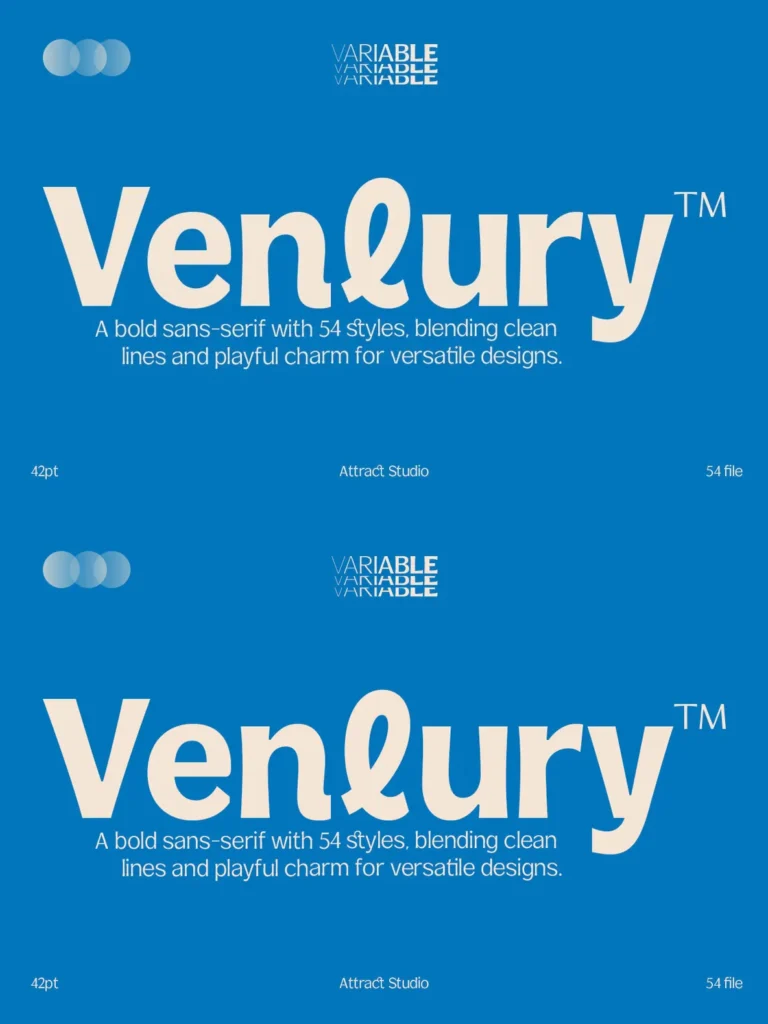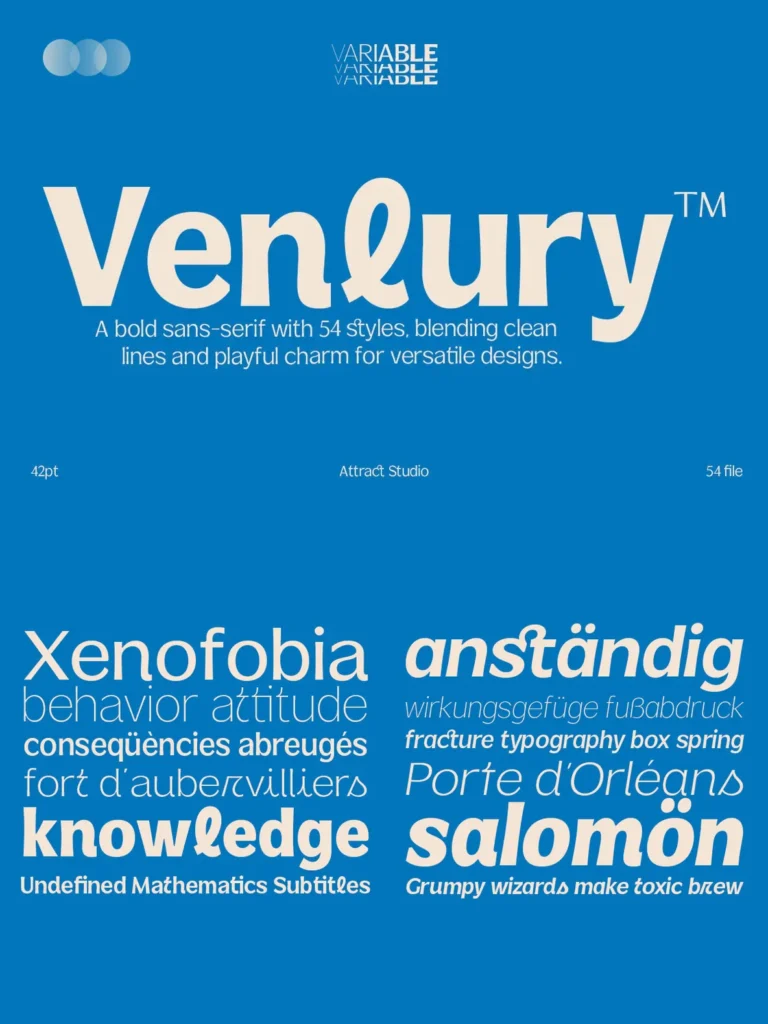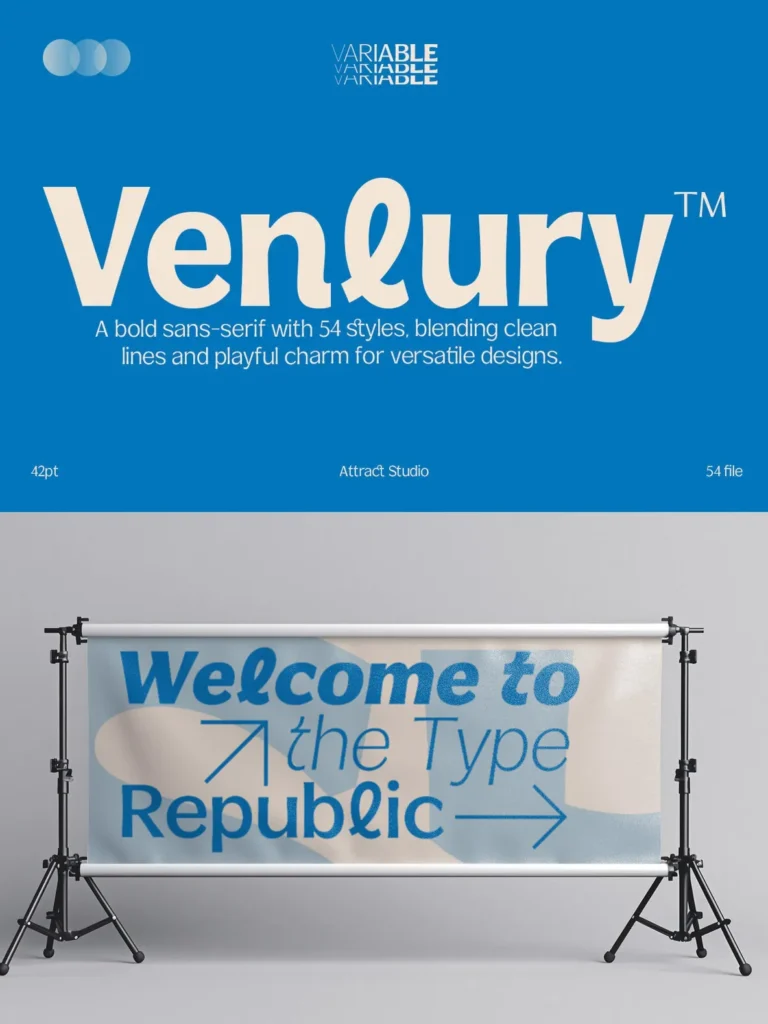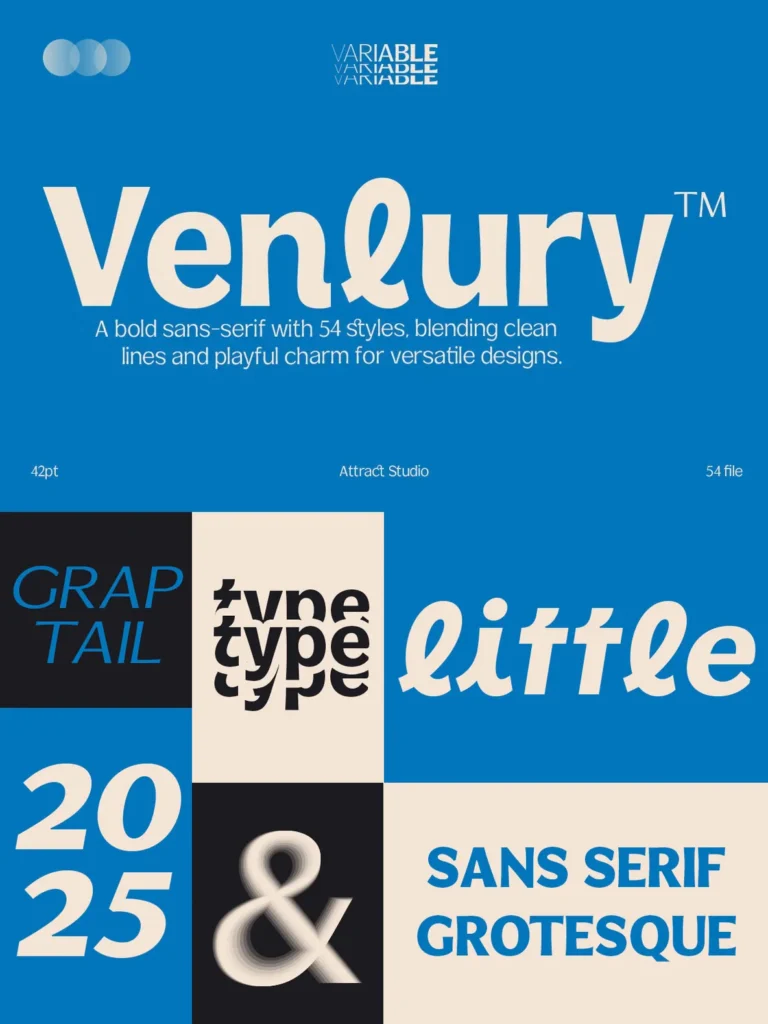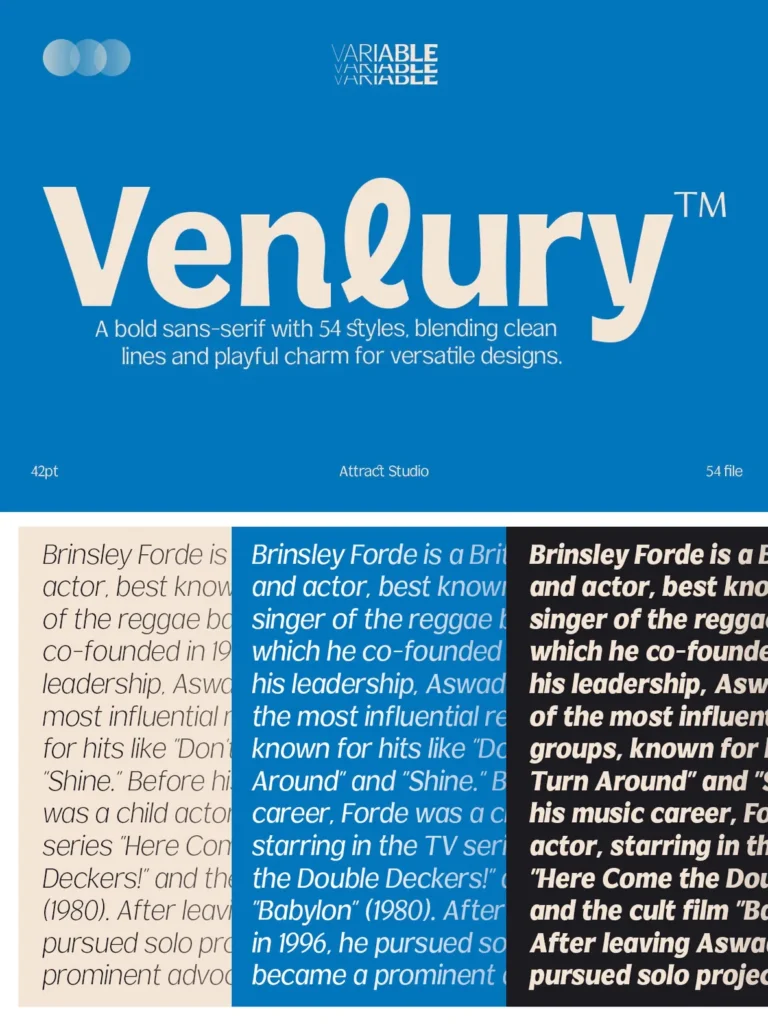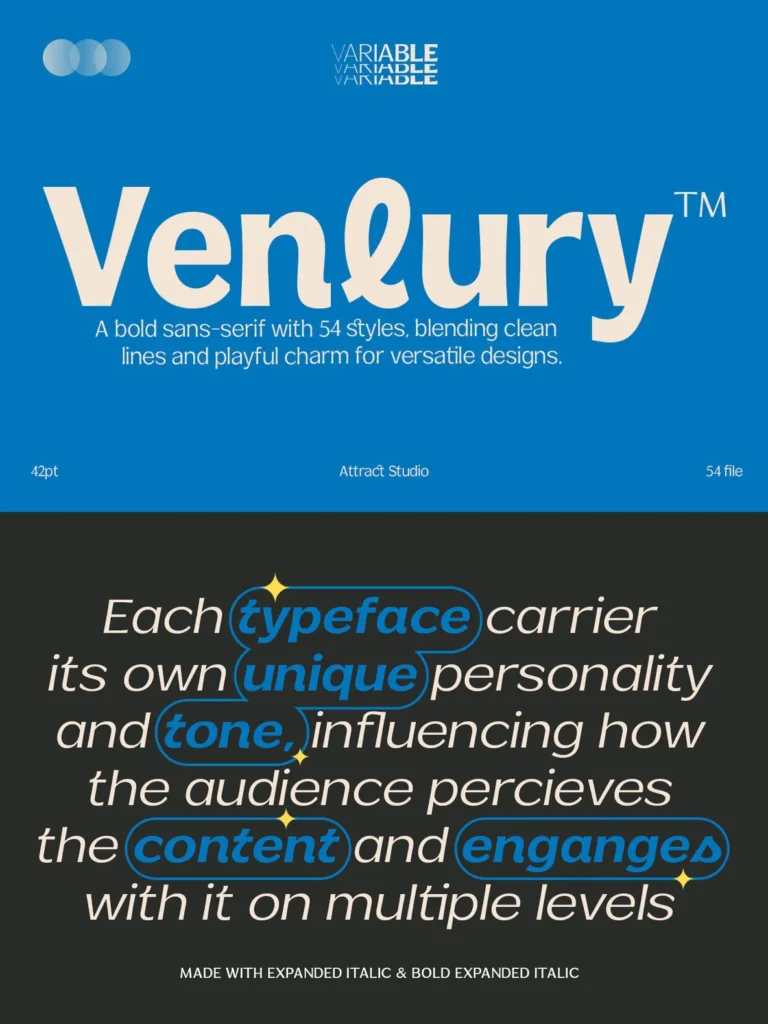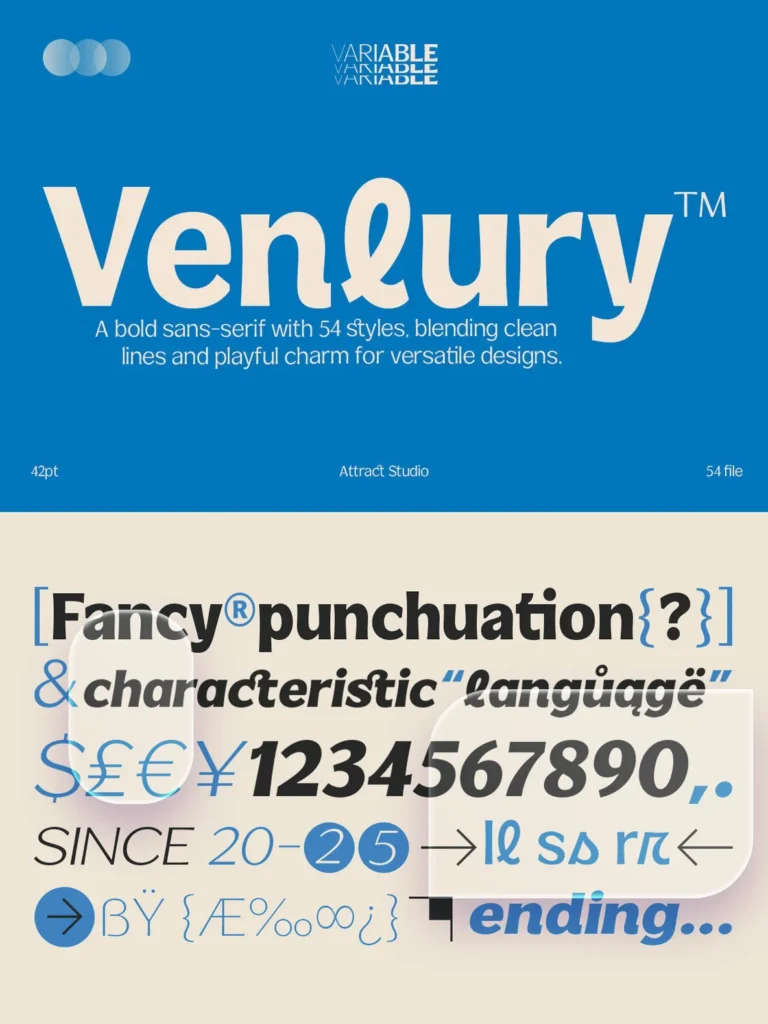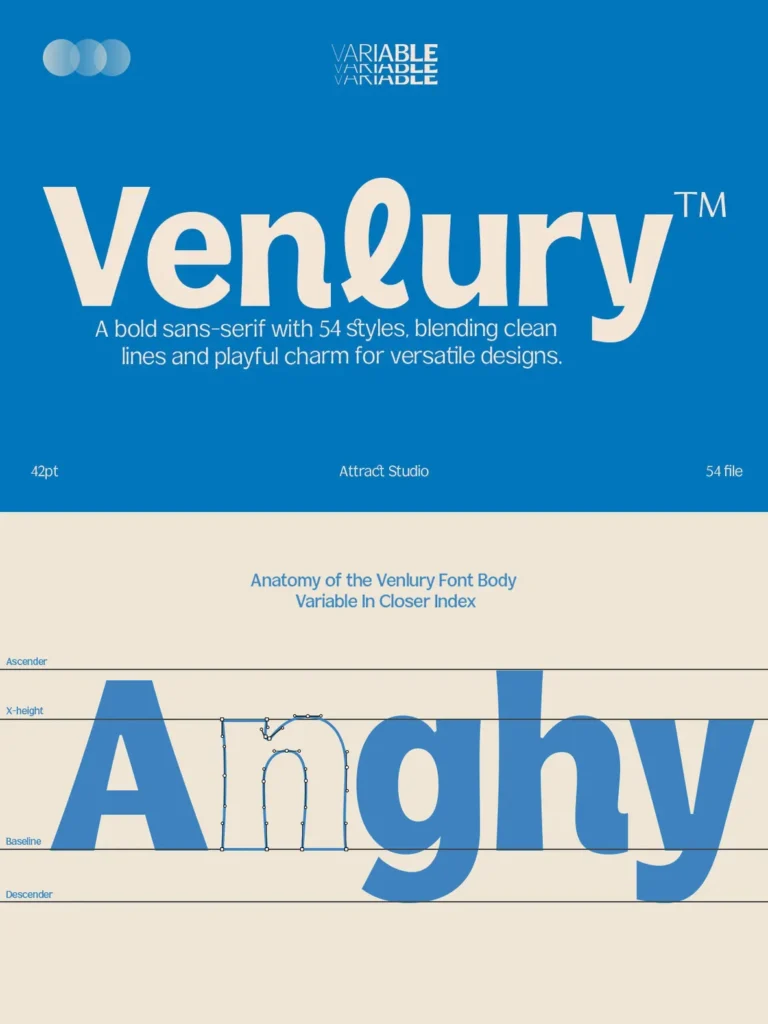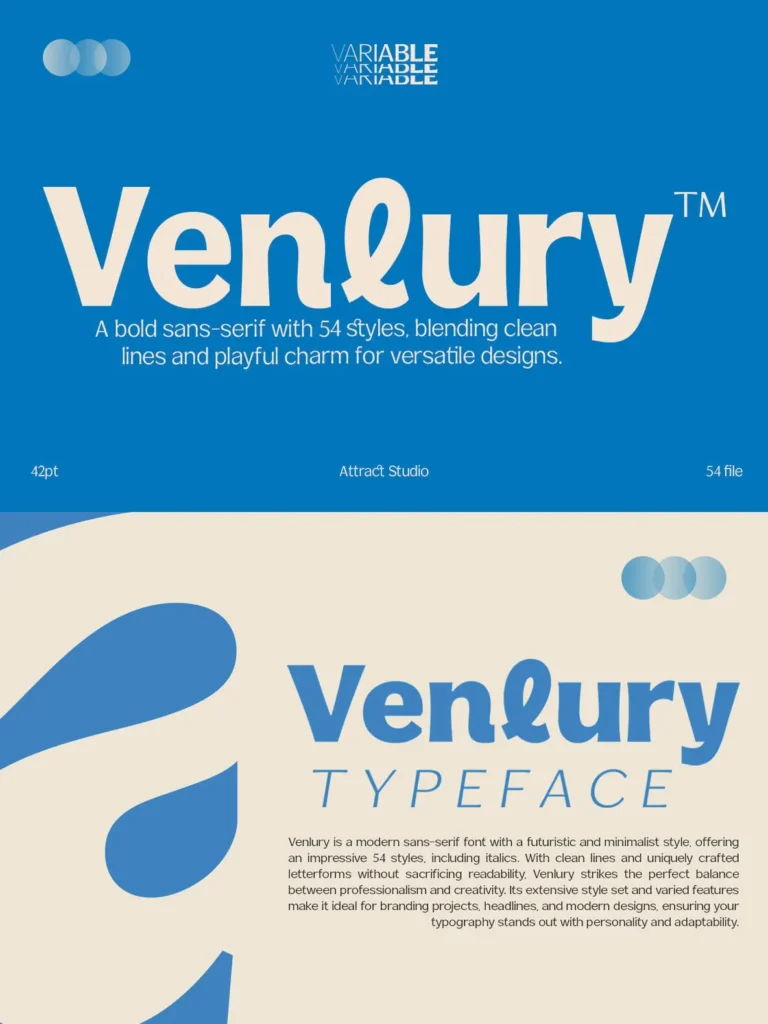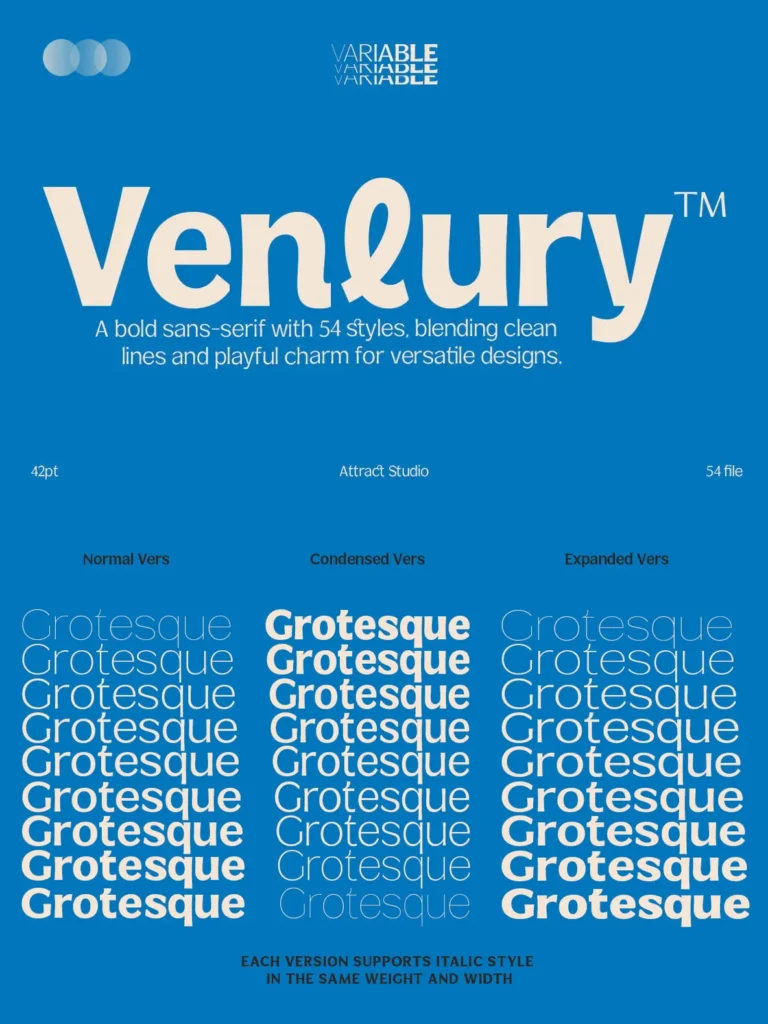
Venlury is a modern sans-serif font with a futuristic and minimalist style, offering an impressive 54 styles, including italics. With clean lines and uniquely crafted letterforms without sacrificing readability, Venlury strikes the perfect balance between professionalism and creativity. Its extensive style set and varied features make it ideal for branding projects, headlines, and modern designs, ensuring your typography stands out with personality and adaptability.